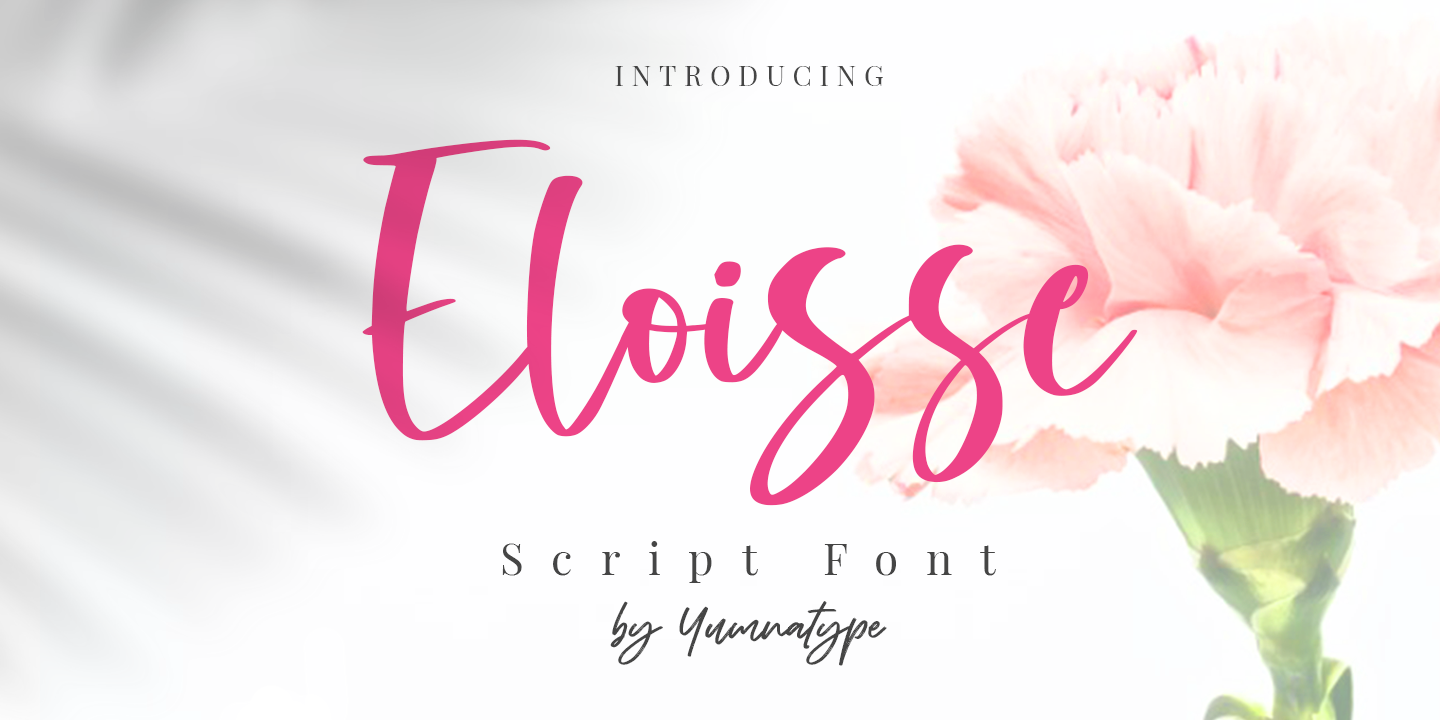
The Eloisse Font excels in various design applications including elegant French-inspired branding, sophisticated boutique signage, romantic wedding invitations, graceful perfume packaging, refined fashion house communications, delicate jewelry brand identities, charming Parisian cafe materials, luxurious spa marketing, feminine lifestyle promotions, and distinguished cultural projects that demand French elegance and romantic sophistication.
What makes the Eloisse Font exciting is its exquisite embodiment of French sophistication and romantic elegance through letterforms that capture the essence of Parisian charm and the timeless allure of French cultural refinement. This typeface demonstrates exceptional grace through carefully crafted characters that suggest the flowing script of French calligraphy, the delicate beauty of French fashion, and the sophisticated romance that defines authentic French style. The font's romantic personality makes it perfect for luxury brands and cultural organizations seeking to communicate French elegance, sophisticated romance, and the kind of timeless charm that evokes the magical atmosphere of Paris through typography that literally flows with French grace.
The Eloisse Font family typically includes elegant weight variations that preserve the French aesthetic, featuring flowing italic styles with romantic flourishes and sophisticated decorative elements. These family options often include French-inspired alternates, romantic ligatures, and Parisian ornaments that provide designers with comprehensive tools for creating authentically French typography that celebrates cultural sophistication while maintaining contemporary design appeal and luxury market credibility.
Luxury brand professionals and French cultural organizations consistently select Eloisse Font Free Download for projects requiring typography that communicates French authenticity and romantic sophistication. This typeface delivers exceptional performance in luxury marketing, fashion branding, and cultural communications where establishing French elegance and creating sophisticated romantic atmosphere is essential for discerning clientele. The font's Parisian character makes it particularly effective for perfume and fashion applications. Download Eloisse Font Free Download today to access this sophisticated typeface that transforms luxury communications with its French elegance and romantic sophistication, creating compelling cultural experiences that honor the magnificent traditions of French style while celebrating the timeless romance that makes French culture eternally captivating and genuinely sophisticated.